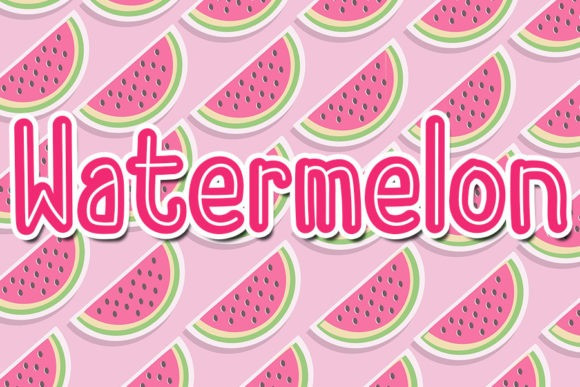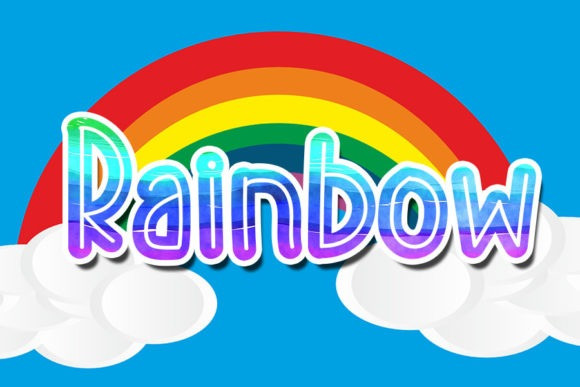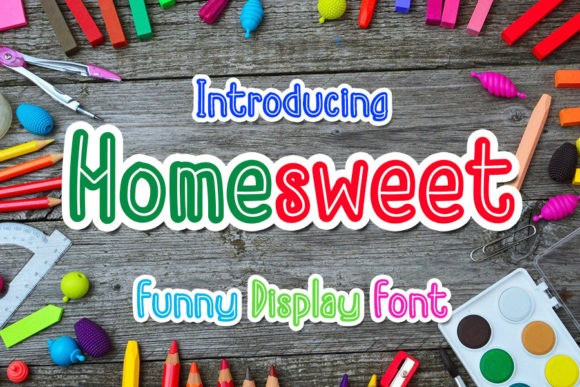
Homesweet Font
Homesweet Font is a neat, simple and jolly display font. Whimsical and a bit quirky, this font will brighten up each of your designs. Add it confidently to your projects, and you will love the results.